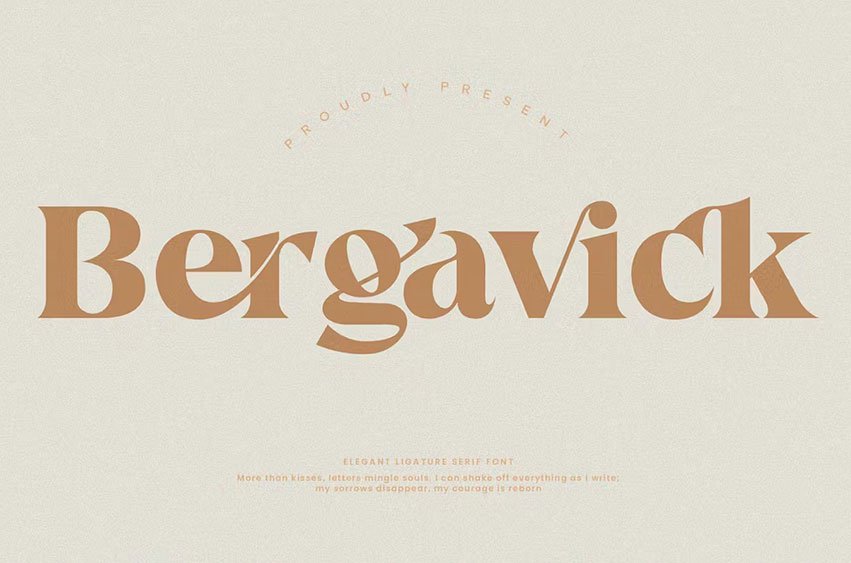
Bergavick Ligature Serif Font A beautiful series of letters is encapsulated in this ‘Bergavick’ font. Neat lettering is perfect for writing needs that are modern and pleasing to the eye. There is a classic impression but still looks elegant when used for writing. The ligature and alternate features add a modern impression to it. This font is ready to be used to support your next design needs.